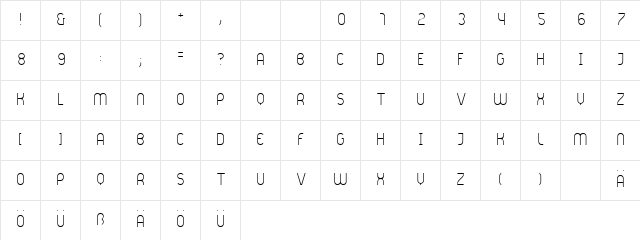
Mass Thin
Design Context for Mass Typeface
Mass takes a measured approach to typography — its balanced proportions and neutral character make it a reliable workhorse for both digital and print work. Its slender proportions lend an understated elegance to any composition.